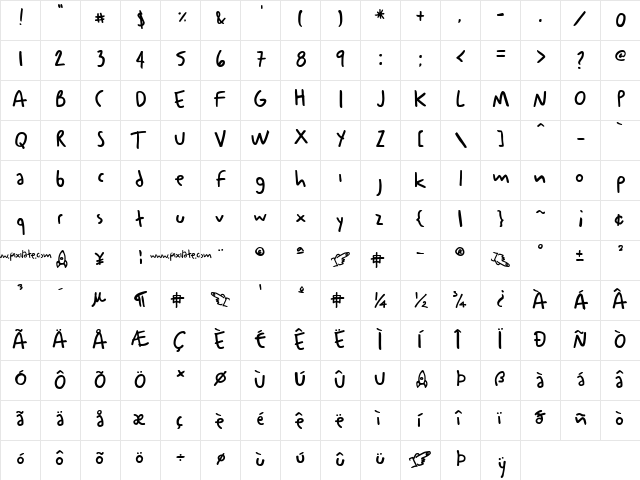
Onder Bold
Design Context for Onder Typeface
Onder is a composed and adaptable typeface that performs quietly and consistently across a wide range of design contexts. Its bold stroke weight gives it real presence on the page.